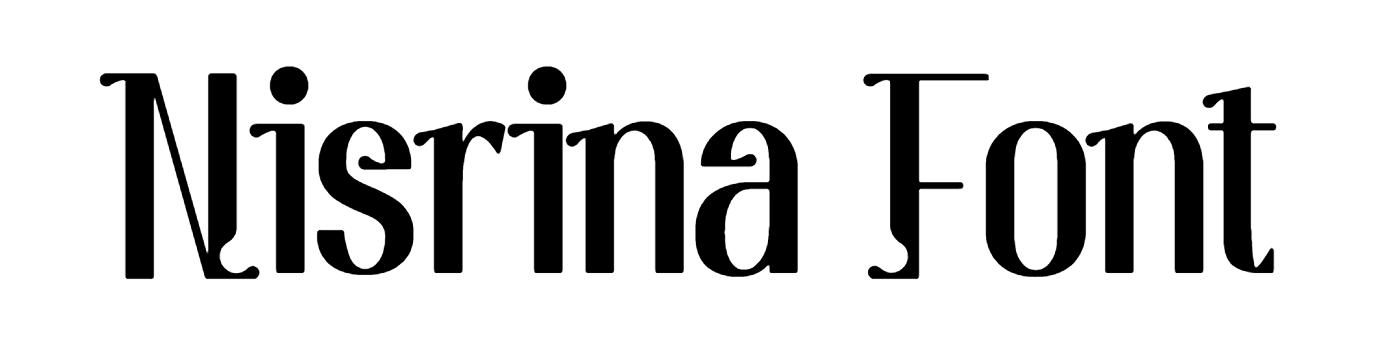
Nisrina
Nisrina is a serif font designed by Ibra Fonts and published by Ibra Creative Studio. It has the traditional, bookish feel of type you see in novels, newspapers and long-established brands. You can download it for free and test it with your own words in the preview above.
What You Can Type With Nisrina
With complete upper and lowercase letters and all ten digits, Nisrina is ready for real wording, not just a single headline. Punctuation is limited, so look at the character map if you need a specific symbol. It has 6 accented letters, but not the full set for Spanish or French, so test any non-English words first.
Where Nisrina Works Best
Think of Nisrina for book covers, magazine headlines and classic branding. Serif fonts shine in headlines and printed text. For long paragraphs on phones, check that it still reads well at small sizes.
Does Nisrina support accented letters?
Partly. Nisrina has 6 accented letters, but not the complete set for Spanish, French or German. Type your words in the preview above to check before you use it.